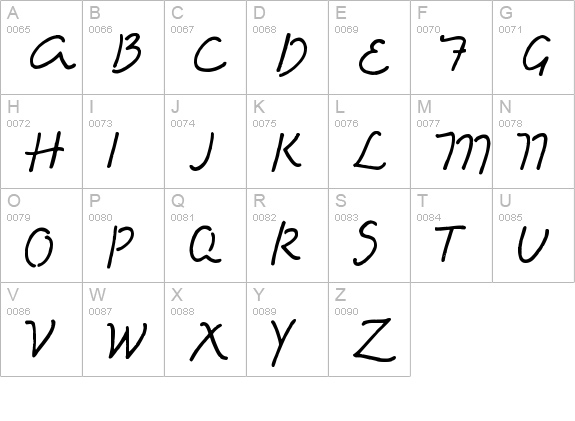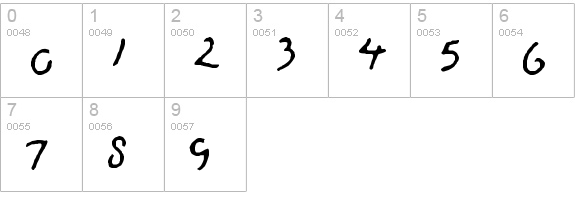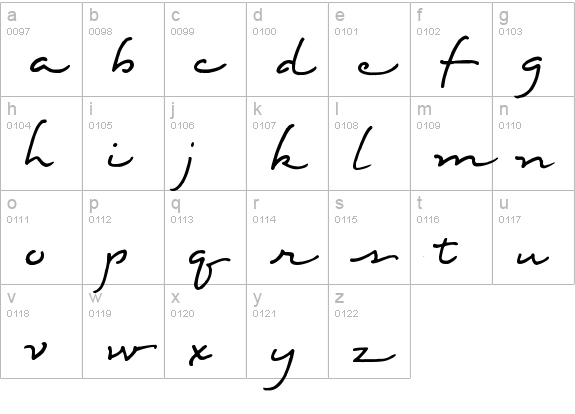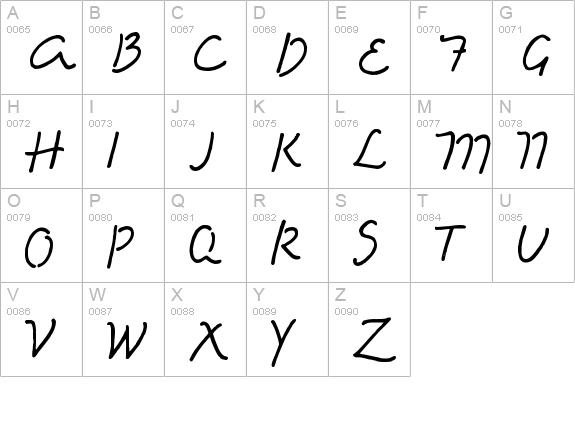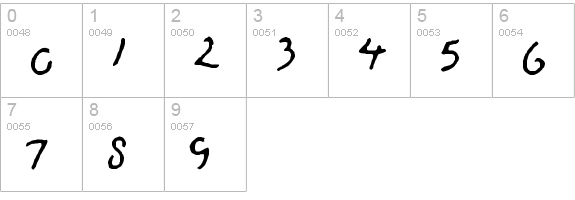
Eight Fifteen font is a modern and stylish typeface that exudes elegance and sophistication. With its clean lines and sleek design, this font is perfect for a wide range of design projects, from branding to editorial design. The versatility of Eight Fifteen font makes it suitable for both headings and body text, adding a touch of class to any layout. The best part about Eight Fifteen font is that it is completely free to download at FontsMarket.com. This means that you can easily access this beautiful font and use it in your projects without any cost. Whether you are a professional designer or a hobbyist looking to elevate your designs, Eight Fifteen font is a fantastic choice that won't break the bank. Don't miss out on the opportunity to enhance your projects with the elegance of Eight Fifteen font. Download it today for free at FontsMarket.com and take your designs to the next level.